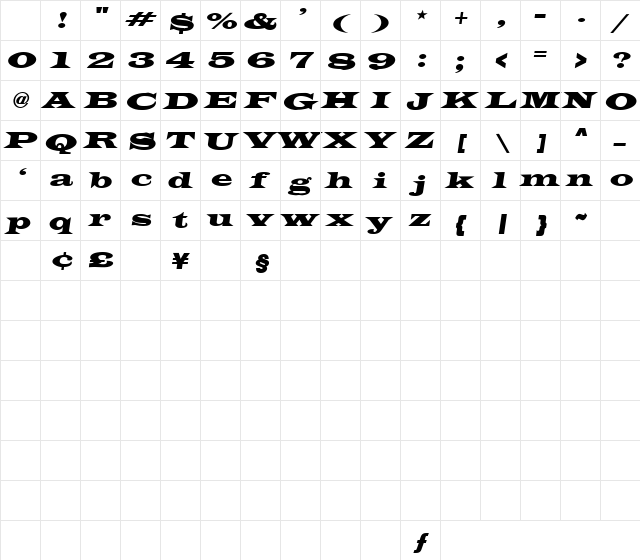
Holmholm is a composed and adaptable typeface that performs quietly and consistently across a wide range of design contexts. The slanted form adds forward momentum and visual energy.
Pro Tip: Use Holmholm for emphasis, pull quotes, and subheadings where its slanted energy can add rhythm to the layout.